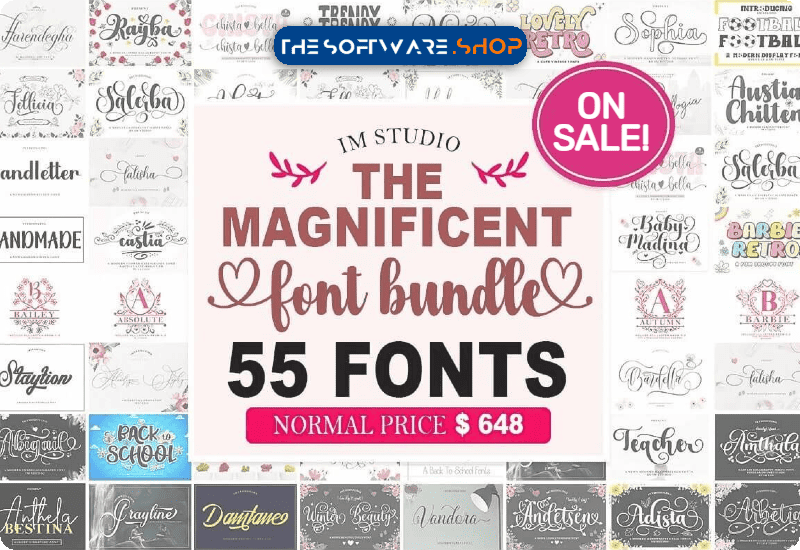
Stepping into the Wonderful World of The Magnificent Font Bundle
Why Choosing The Magnificent Font Bundle Matters
Unleash distinguished looks in your creative projects with premium font picks like:
- Luscious ‘Abigail Outline’, chic ‘Lovely Retro Display’
- Mesmerising duo ‘Sweet Loves Duo’, intricate ‘Holiday Magic Display’ among many.
Get ready to transform traditional visuals into vibrant masterpieces through the inspiring variety delivered by this bundle,suitable across differentcrafting projects globally.
Premium Listing Underneath The Magnificent Font Bundle
Stand-out fonts include endless choices showcasing everything from classic elegance like ‘Sophia’ or ‘Gloria Monoline,’ to extravagant fun such as ‘Football Display,’ ‘Barbie Monogram,’ and ‘Beach Party.’ Dabble in sweet incredulity with the captivatingly adorable ‘Cupcake Delicious Duo,’ adding distinctive zest by employing lovely handwritten options like ‘Teacher Script.’
There are also chic cursive options, such as ‘Alustia Font Corsivi,’ ambiance-filled decorator-like ‘Autumn Monogram,’ delectable ‘Baby Hellanesta Script,’ majestically demure ‘Melissa Monogram,’ and trendy choices like ‘Trendy Display,’ all effortlessly included in this exciting bundle.
- What are some samples inside The Magnificent Font Bundle? Some cherished examples include ‘Abigail Outline,’ the chic ‘Lovely Retro,’ and the exquisite duo – ‘Sweet Loves Duo’ – to name just a few among the many featured listings.
- Do they come individually or as part of a bundled set under the mentioned offer? This special offer packs scintillating familial type collections (like Duo, Script, Display) together with singular selections, congregating arrays catering to every conceivable individual taste while keeping project-yielding possibilities in mind too.